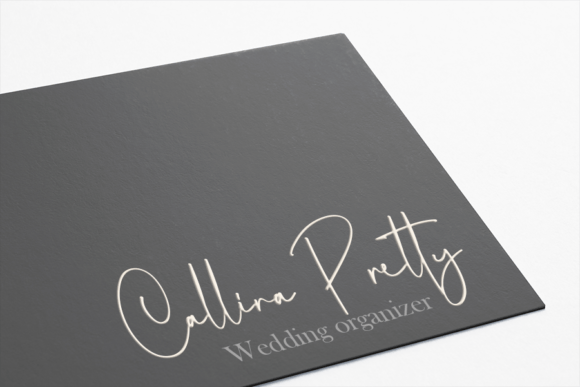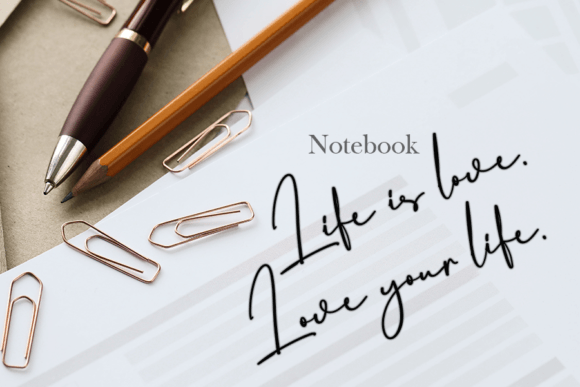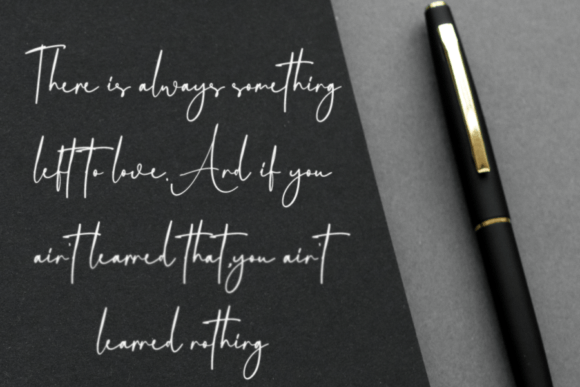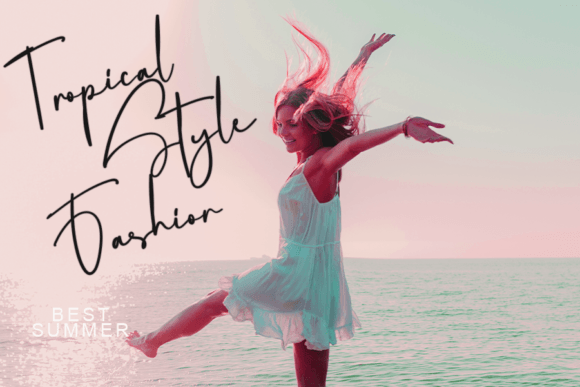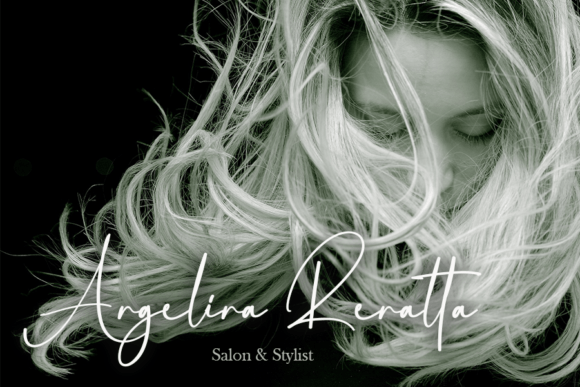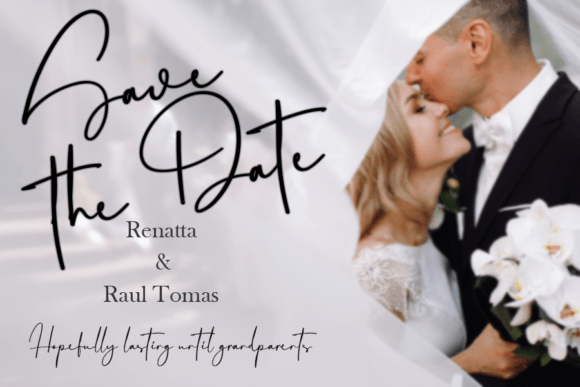
Introduction to Letterings Font Font
Fonts play a crucial role in design, and the Letterings Font font is a typeface that brings both character and versatility to any project. Whether you’re working on a branding project, a website, or a print design, the Letterings Font font offers a unique style that can elevate your work.
Letterings is a stylish and elegant signature script font.
Use it to add an authentic and luxurious vibe to any design project .
Key Features of Letterings Font Font
Why Choose Letterings Font Font?
The Letterings Font font is more than just a typeface – it’s a design tool that helps you communicate your message with style and clarity. Its unique character set and versatile design make it suitable for a wide range of applications, from elegant invitations to bold headlines.
With its carefully crafted letterforms and balanced proportions, the Letterings Font font ensures readability and visual appeal across all mediums.
What makes Letterings Font font special?
The Letterings Font font stands out with its unique design, exceptional readability, and versatility across various design applications.